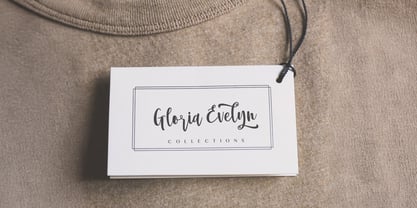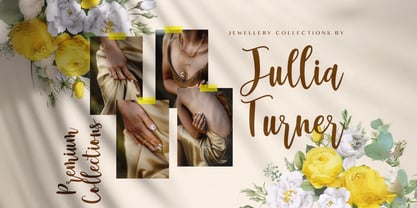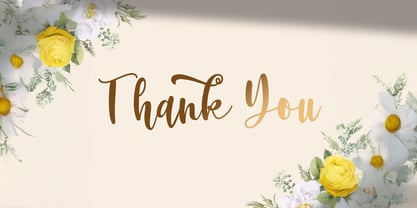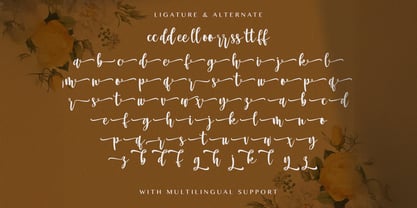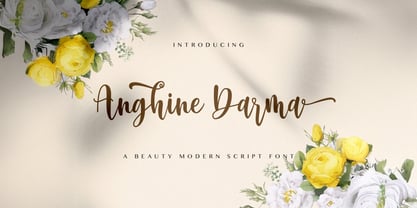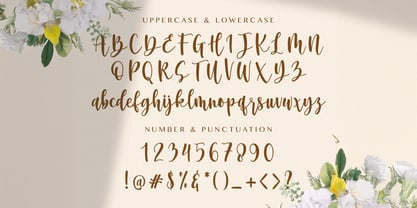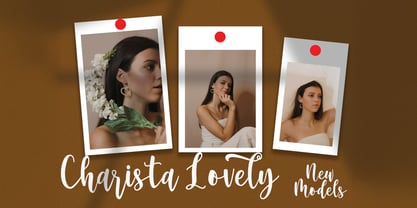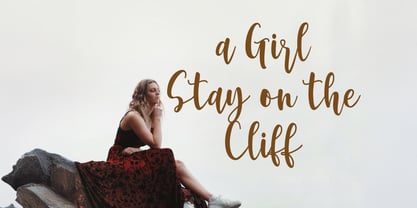
Anghine Darma
by Stringlabs Creative Studio
The Anghine Darma Font Family was designed by Virgiawan Listanto and published by Stringlabs Creative Studio. Anghine Darma contains 1 styles.
Angelina Rahmy is a modern script font that blends timeless elegance with a clean, contemporary flair. With its flowing strokes, stylish curves, and refined details, Angelina Rahmy brings sophistication and femininity to any project, perfect for designers who want their work to feel effortlessly graceful. Whether you're crafting a luxury logo or a heartfelt quote, Angelina Rahmy adds a modern handwritten charm that feels personal, polished, and oh-so stylish.